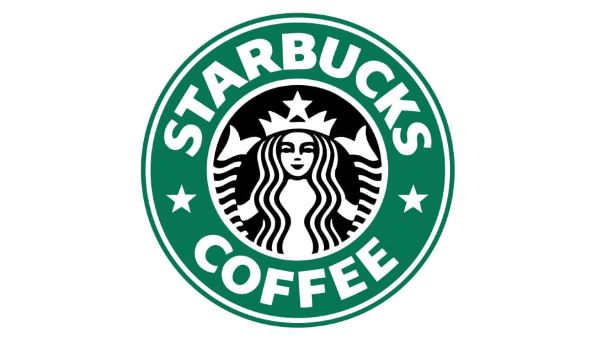
Starbucks Font
What Font is Starbucks?
The Starbucks Font is SoDo Sans Black, the official typeface used across Starbucks’ brand identity and mentioned directly on their design guidelines. It is a clean, modern, geometric sans-serif with strong legibility and a warm visual tone that reflects the brand’s welcoming, community-focused image.
About Starbucks
Starbucks is a global coffeehouse chain founded in 1971 in Seattle, Washington. Known for its signature coffee drinks, seasonal offerings, and café culture, the brand has grown into one of the world’s most recognizable companies, with thousands of locations worldwide.
Starbucks emphasizes high-quality coffee, customer experience, and cozy, community-oriented spaces, shaping modern coffee culture across the globe. Its visual identity—including the iconic Siren logo and the SoDo Sans typeface—reflects a blend of modern minimalism and timeless brand consistency, reinforcing its reputation as a leader in specialty coffee.